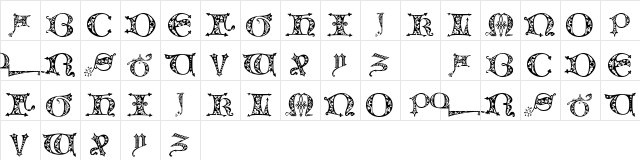
101! Medieval Alpha Regular
Design Context for 101! Medieval Alpha Typeface
101! Medieval Alpha is a composed and adaptable typeface that performs quietly and consistently across a wide range of design contexts.